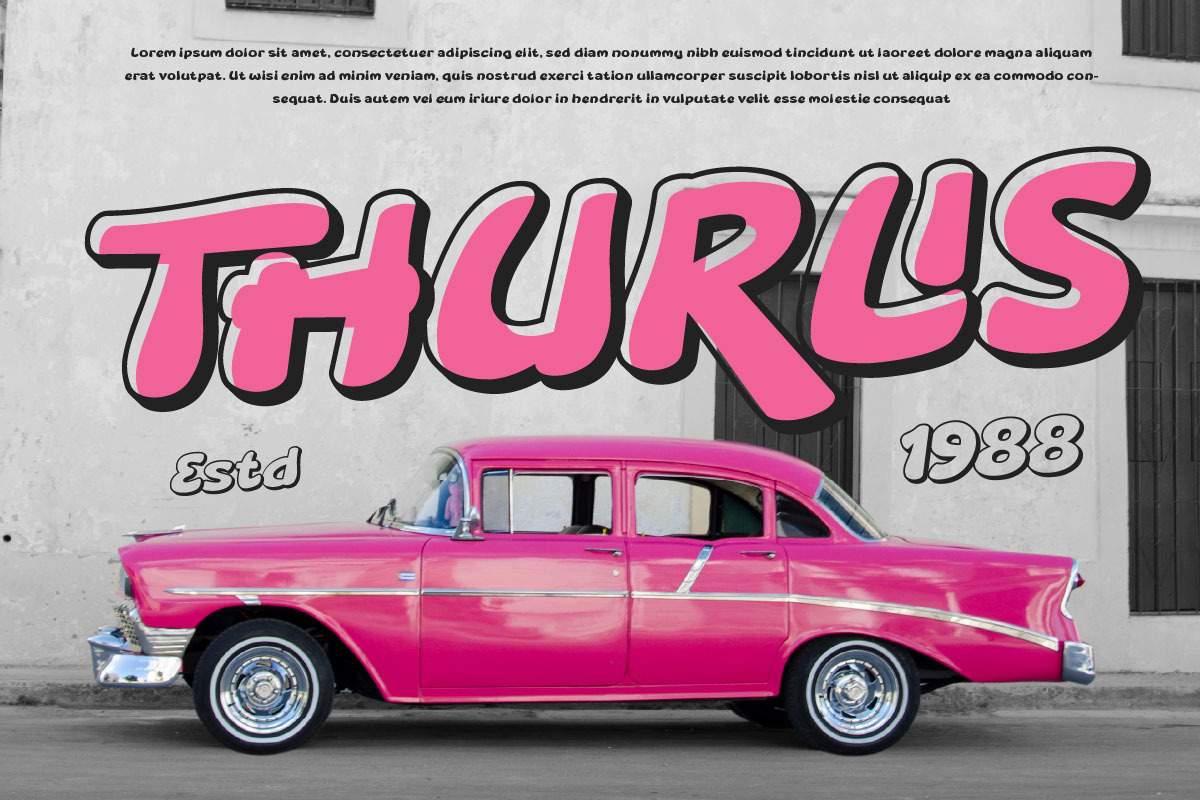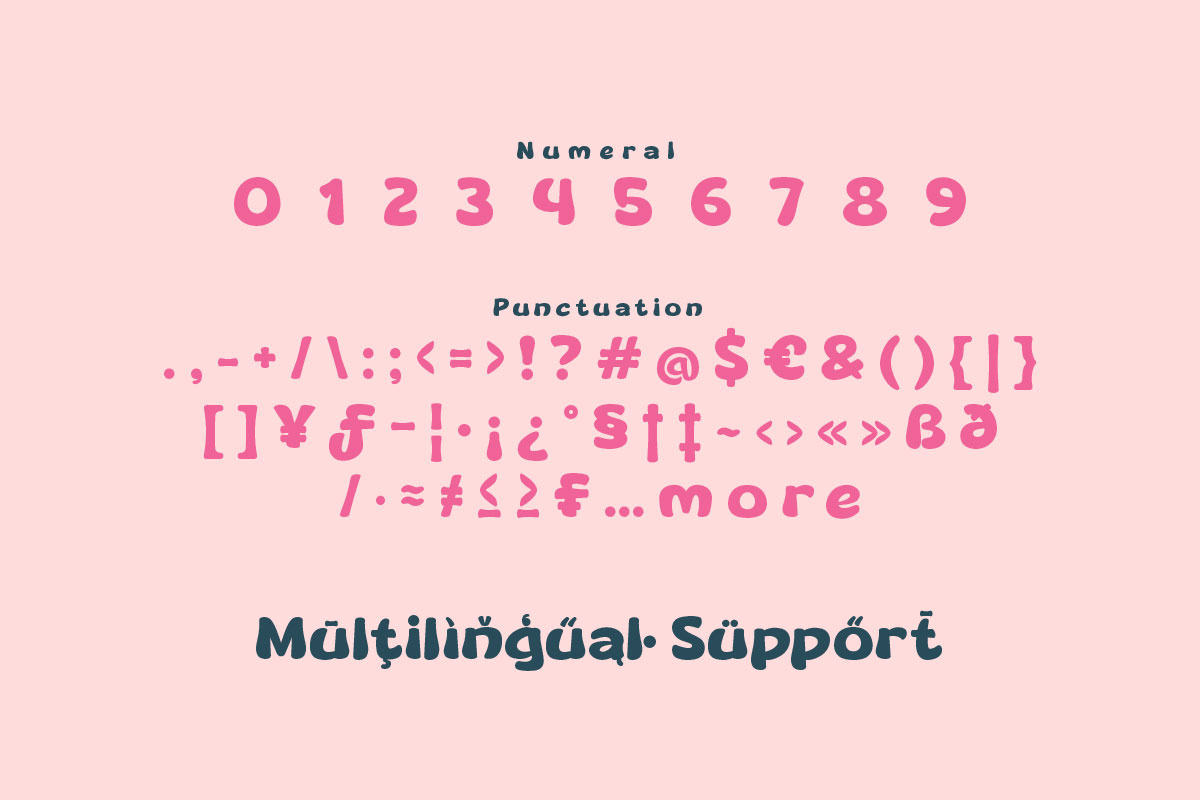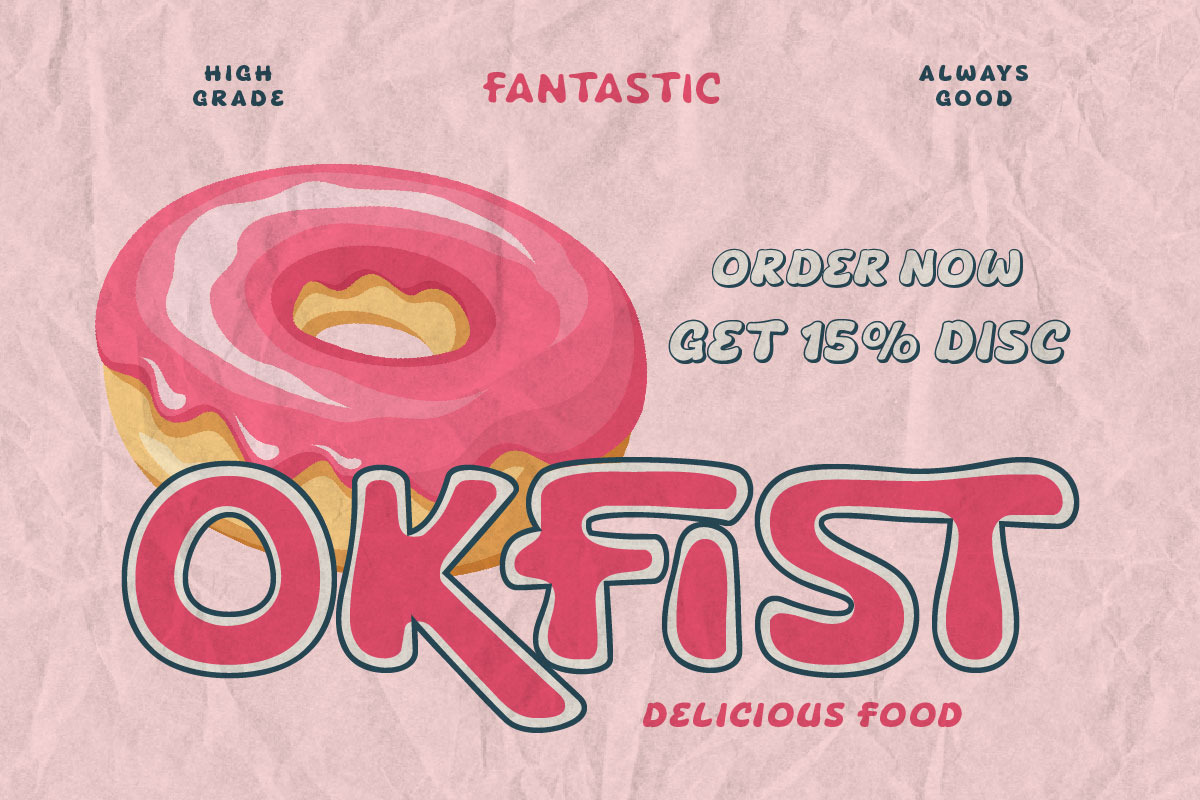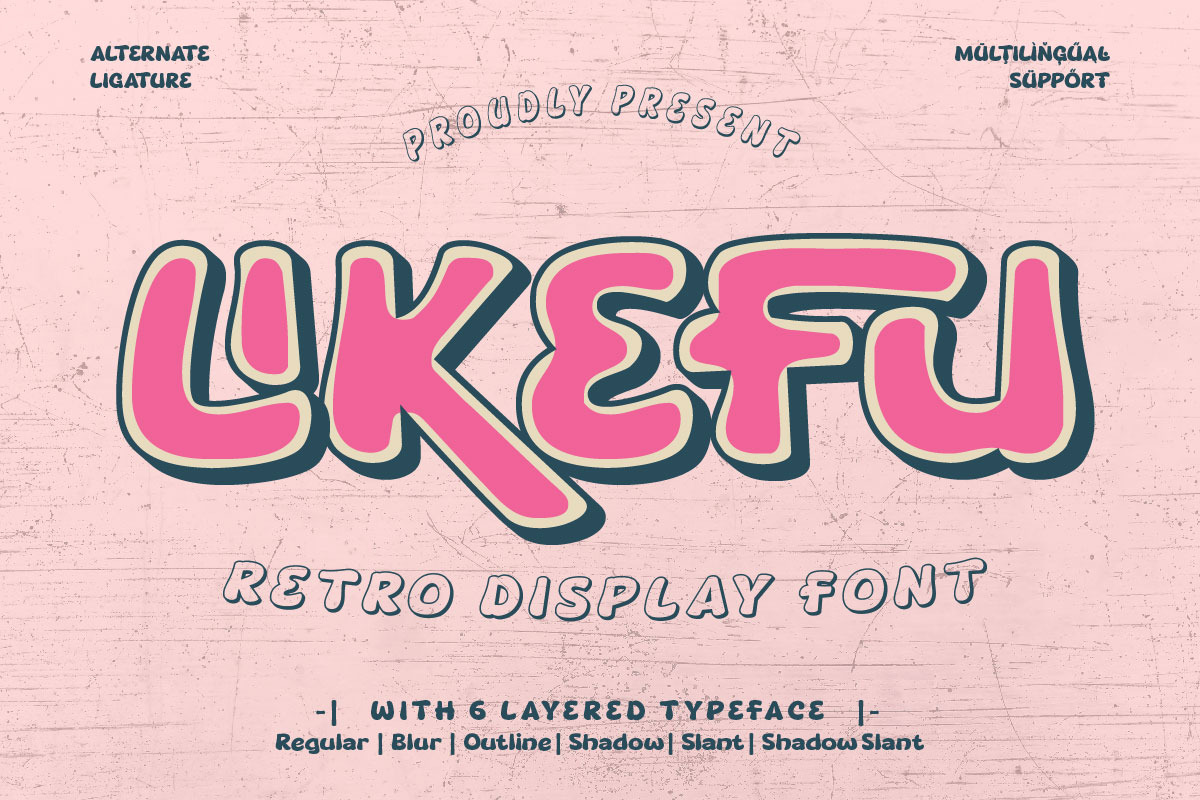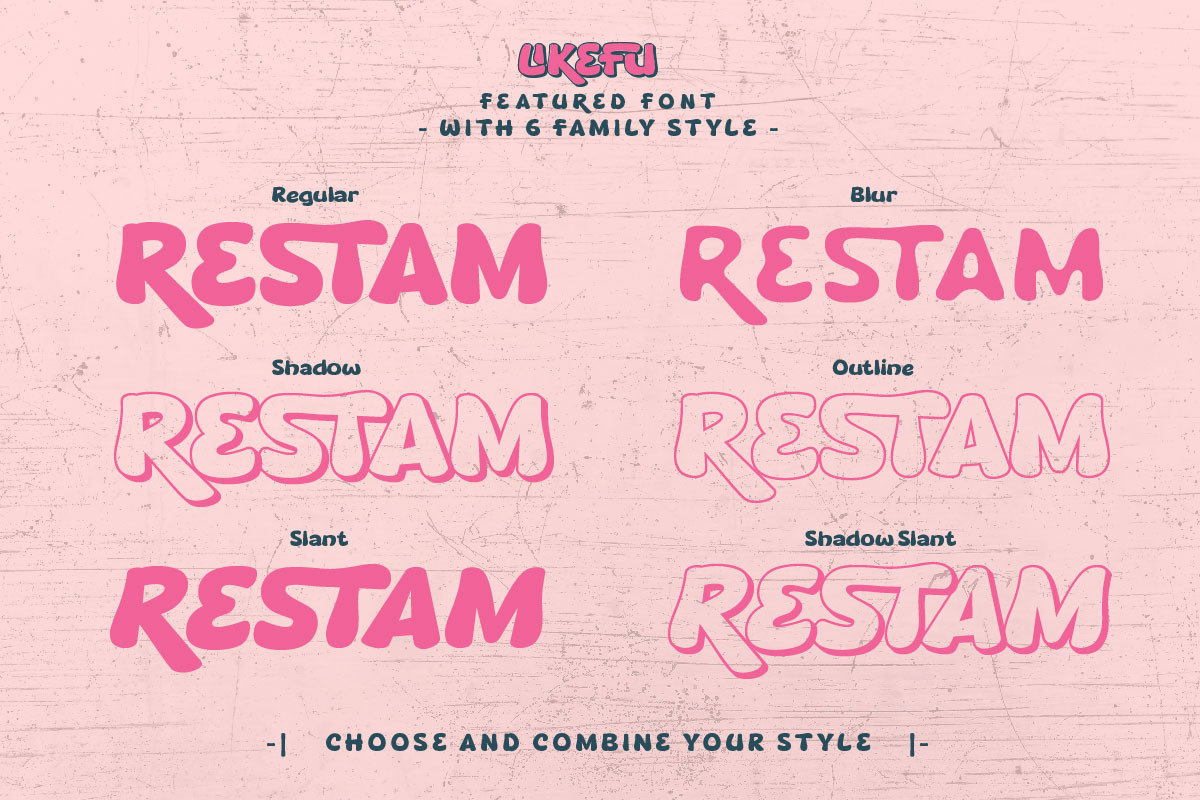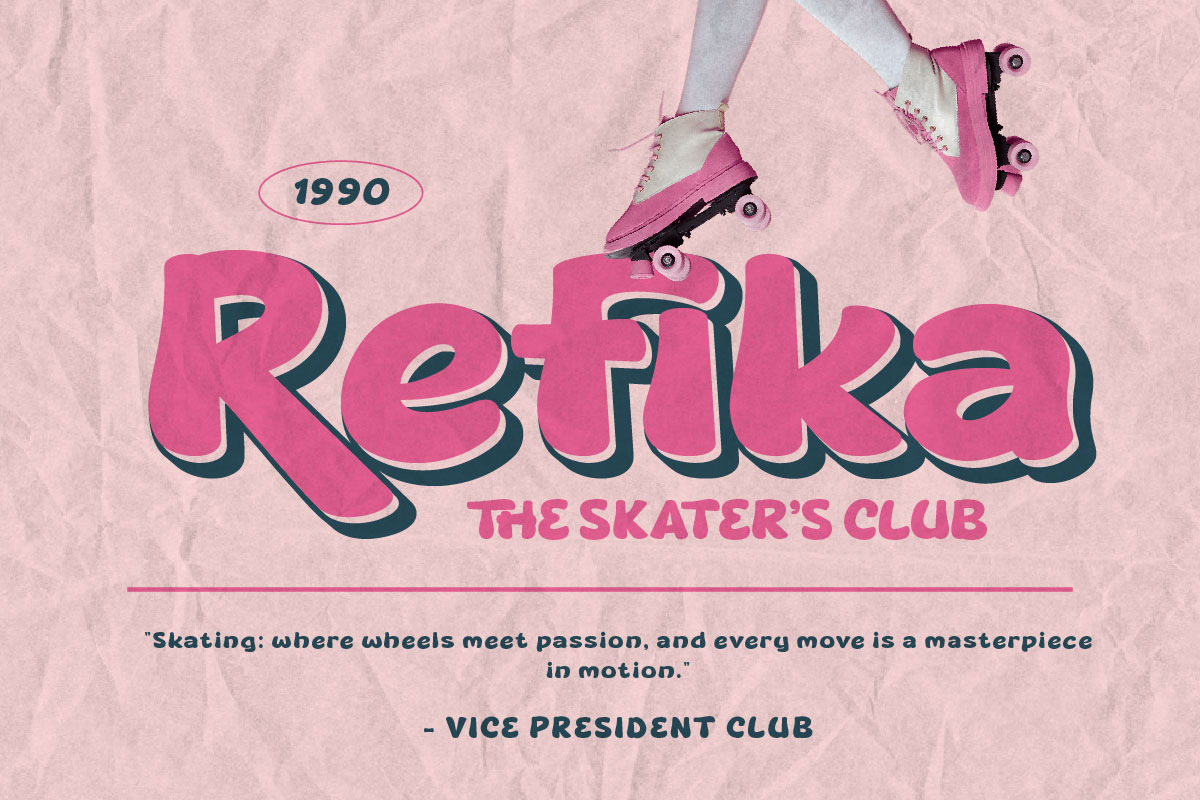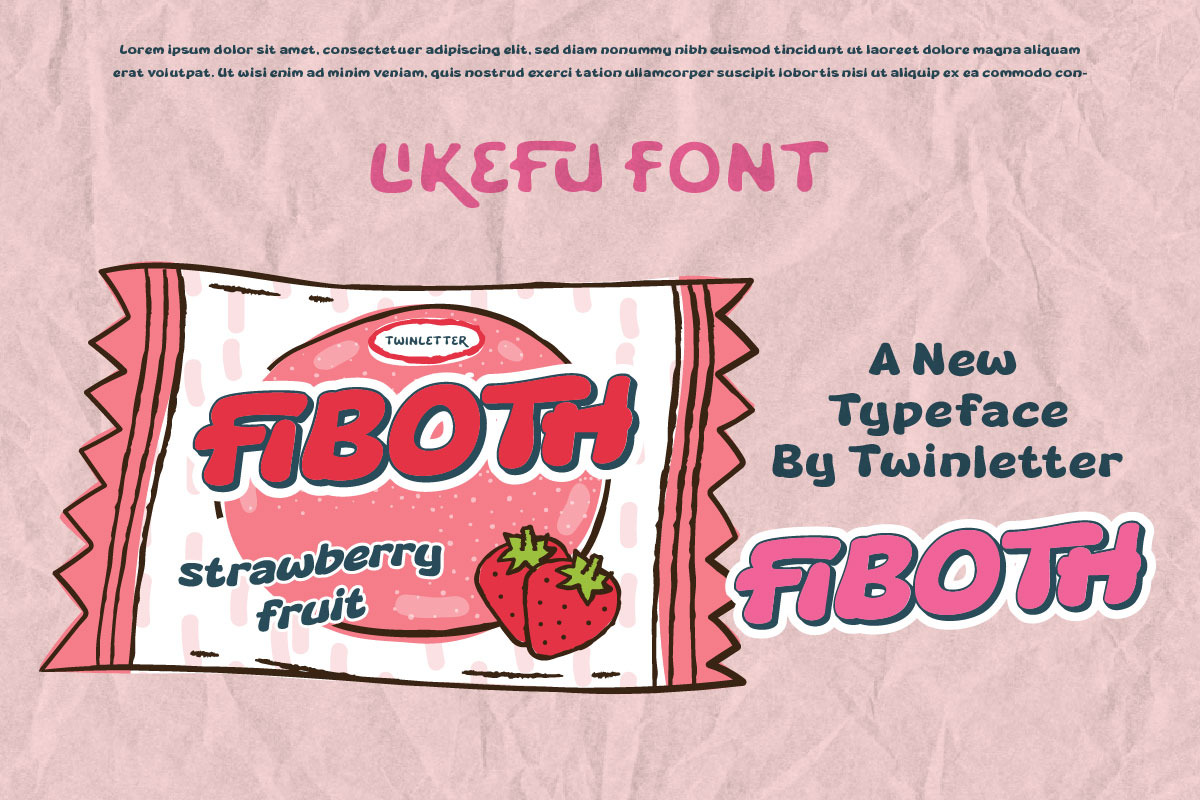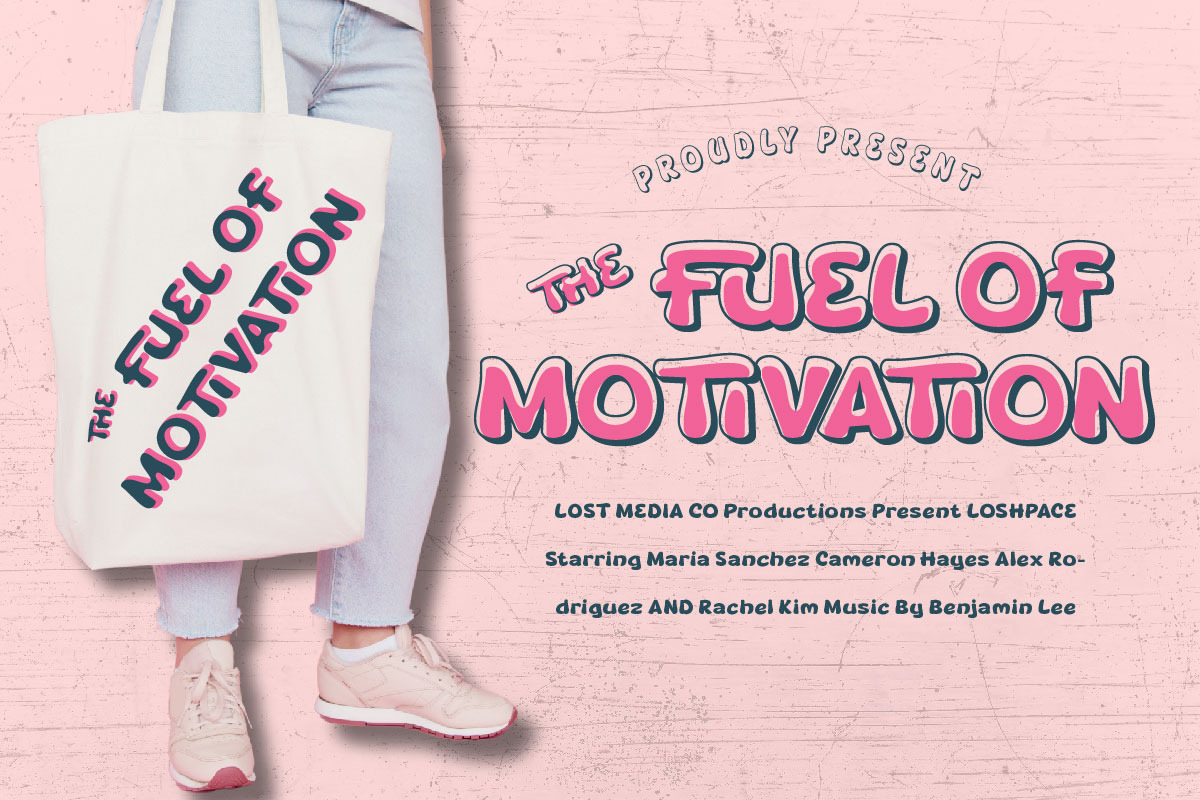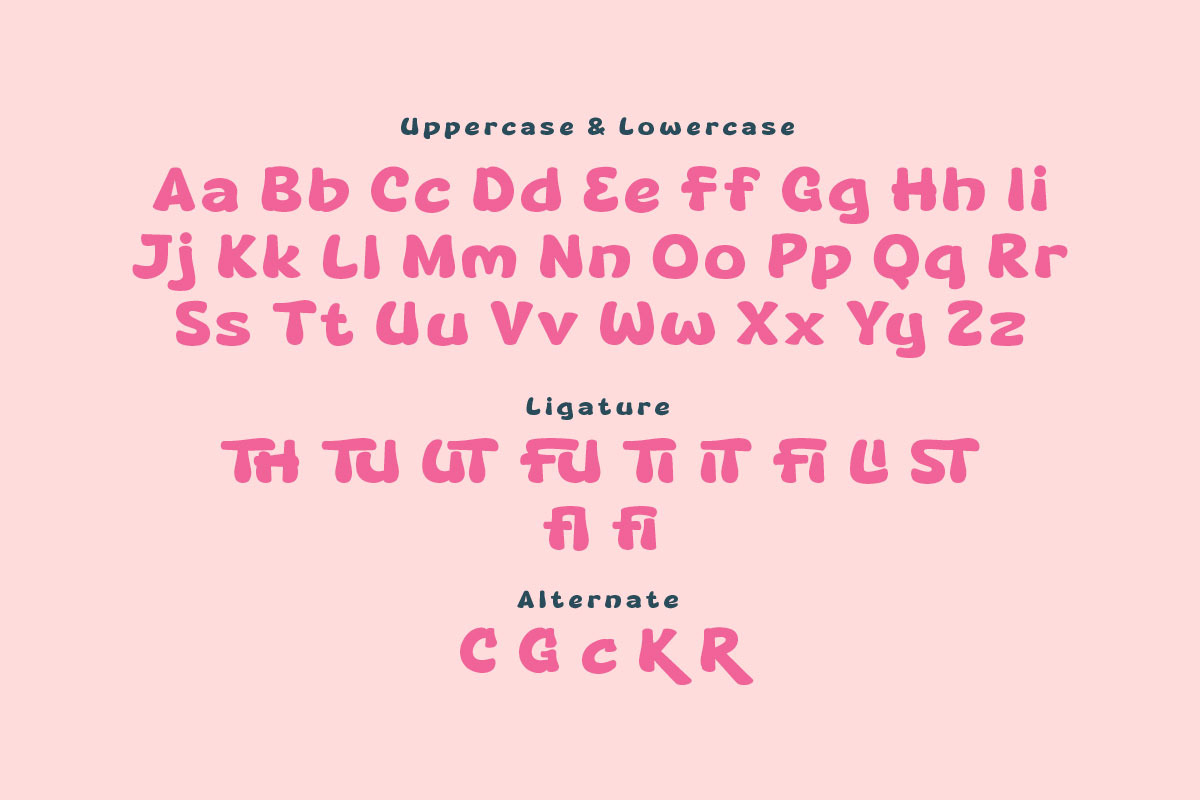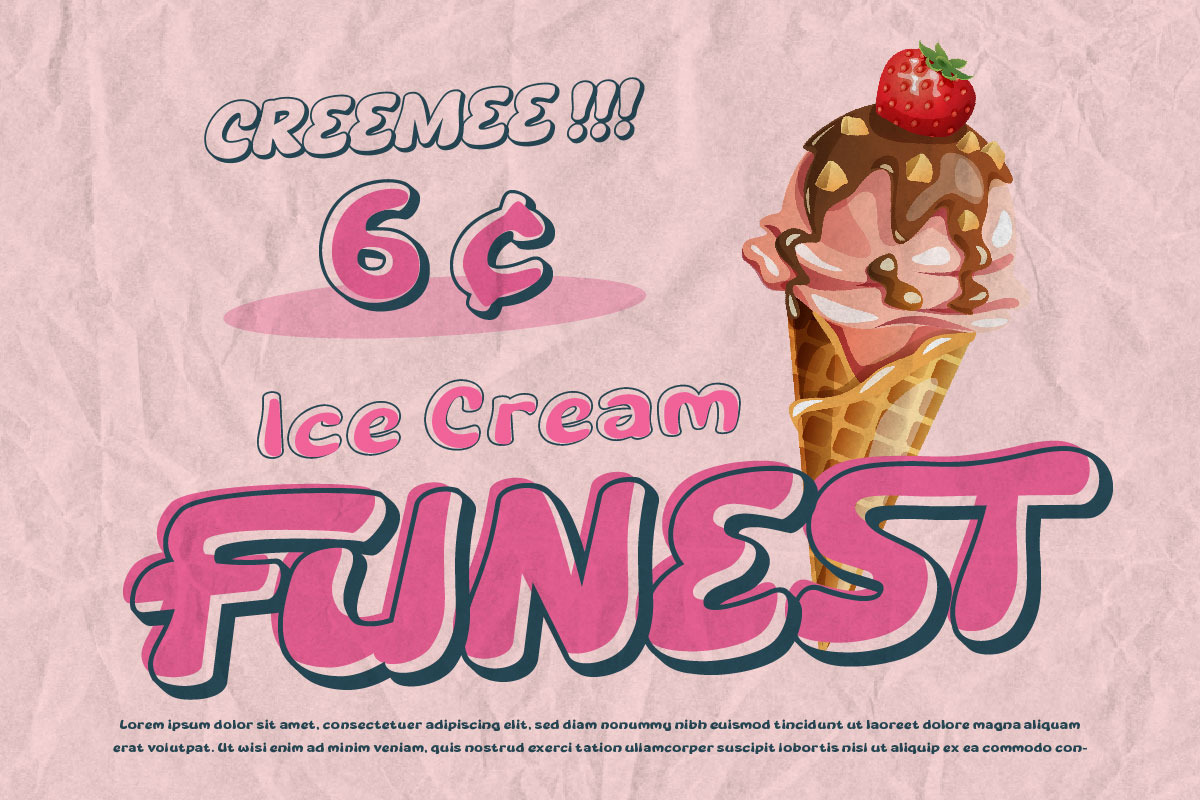
Likefu - Retro Display Font
Likefu is a display typeface with a retro aesthetic, creating a look reminiscent of classic typography styles from the past. This font is designed to give a nostalgic and classic feel to design projects that require a retro touch, such as posters, logos, or promotional materials with a vintage theme.
Each letter in Likefu exudes a distinctly retro character, with simple lines and design elements that reflect classic typographic styles. This font can provide elegance and old-school appeal while blending with a modern aesthetic to maintain a fresh feel.
This font can highlight titles or other design elements in projects that need a classic and retro touch.
Likefu takes users back in time familiarly and invitingly, and this font can give your design projects an understated yet characterful look. Suitable for those who want to bring a nostalgic feel to their visual works with a retro and awesome typography style.